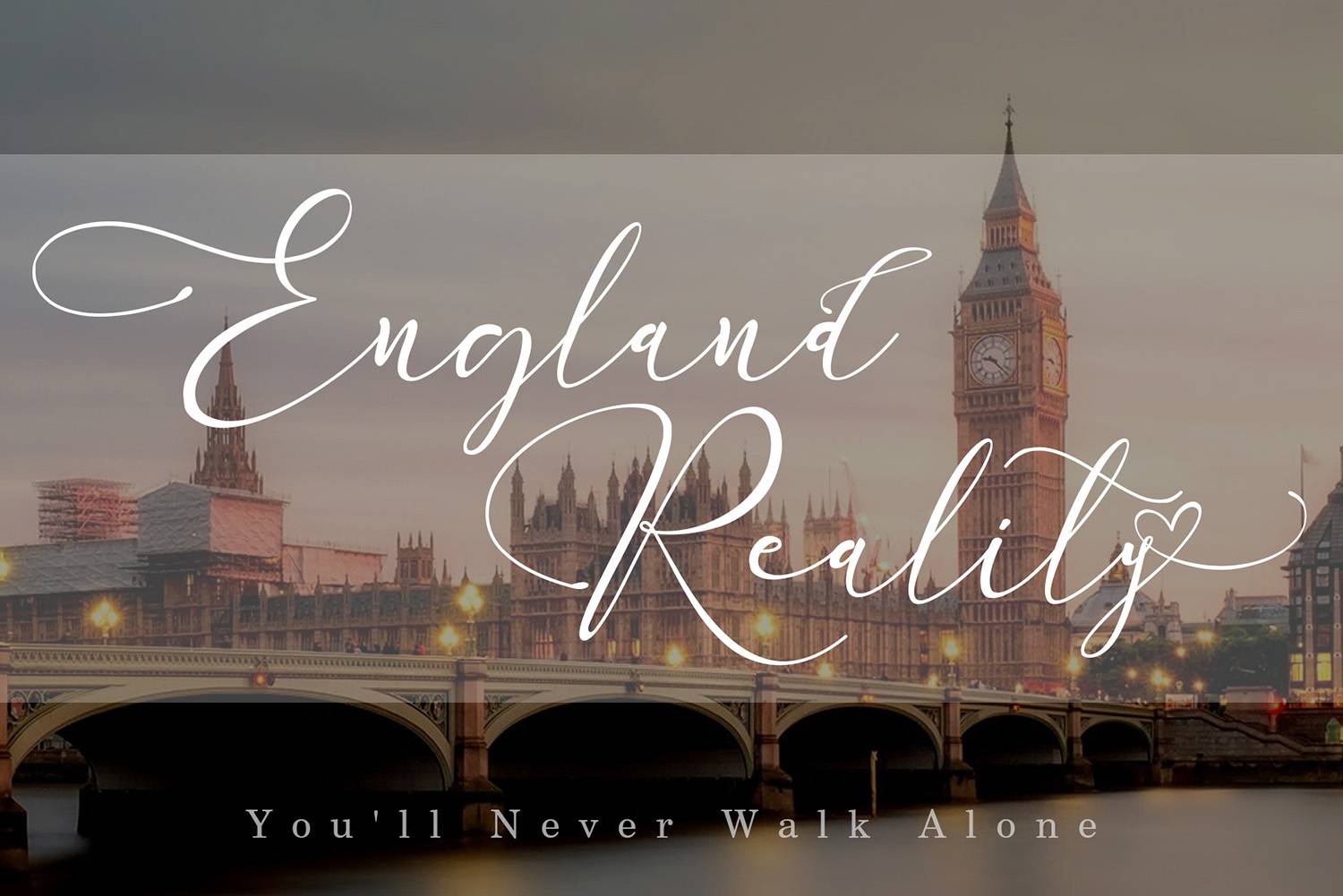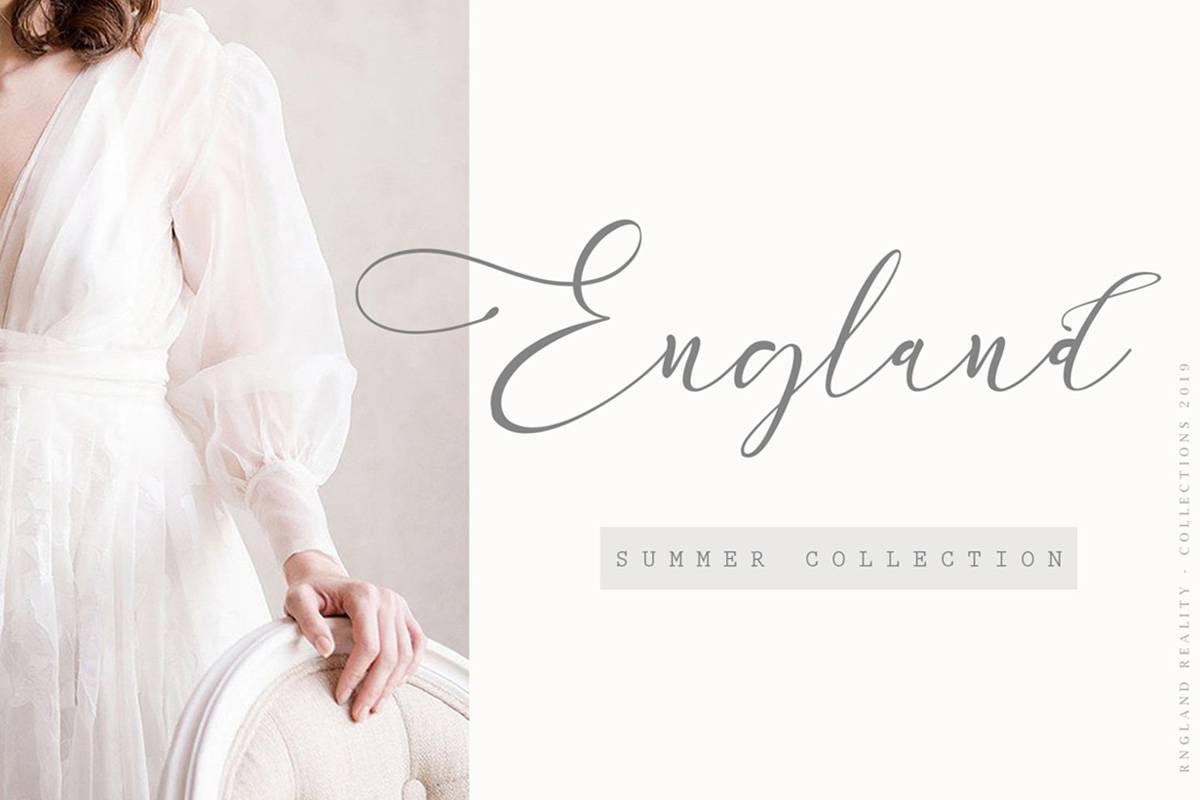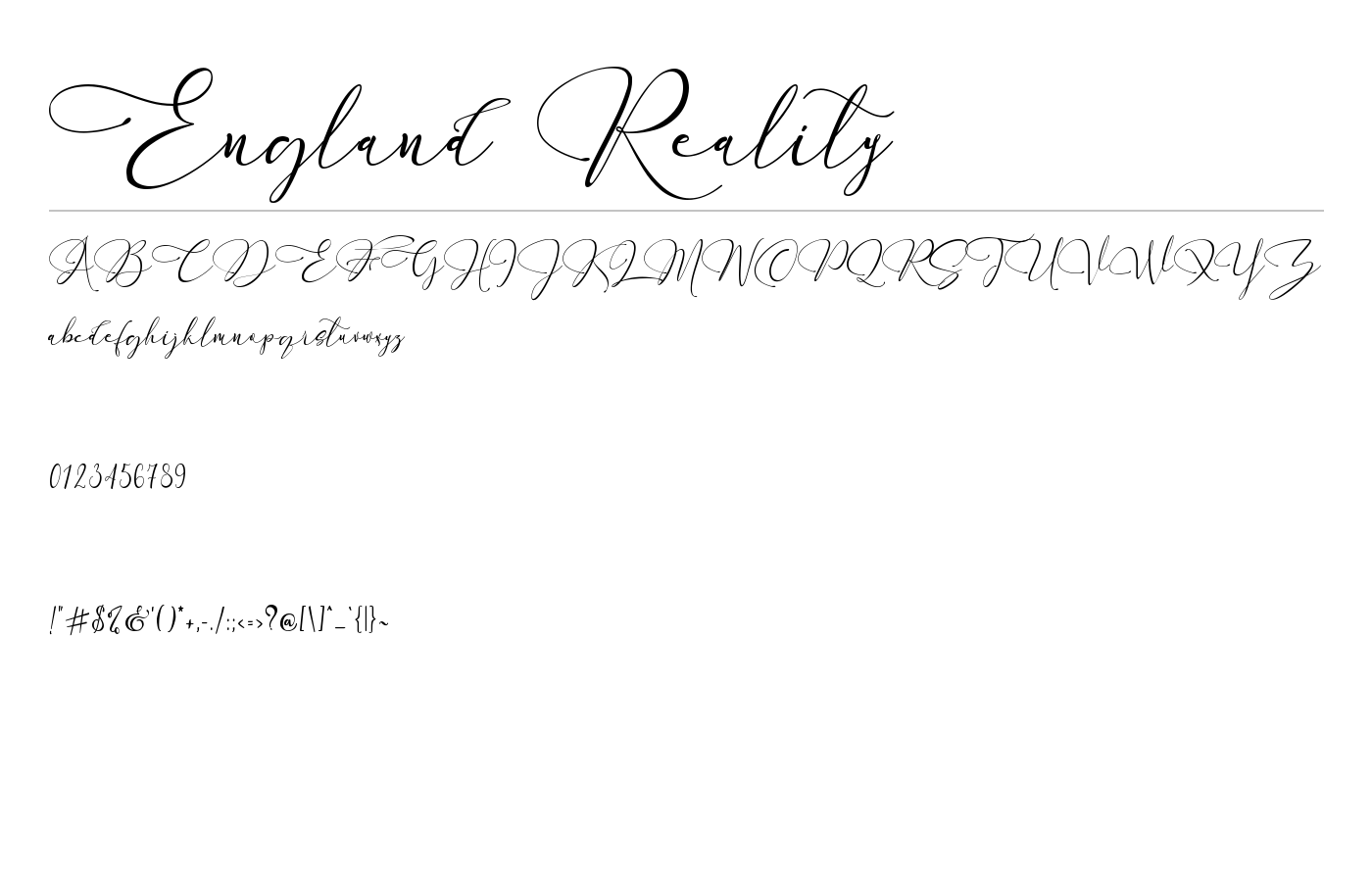
England Reality is an elegant, delicate script font with fine, flowing strokes that create a graceful, handwritten appearance. Its thin line weight and elaborate swashes give it a refined, sophisticated feel, perfect for luxury branding, wedding invitations, or upscale editorial design. This font shines in contexts where a touch of classic beauty and stylish flair is desired.
England Reality Font
About England Reality Font
| Font family | England Reality Font |
| Designer | Aldedesign 2019 |